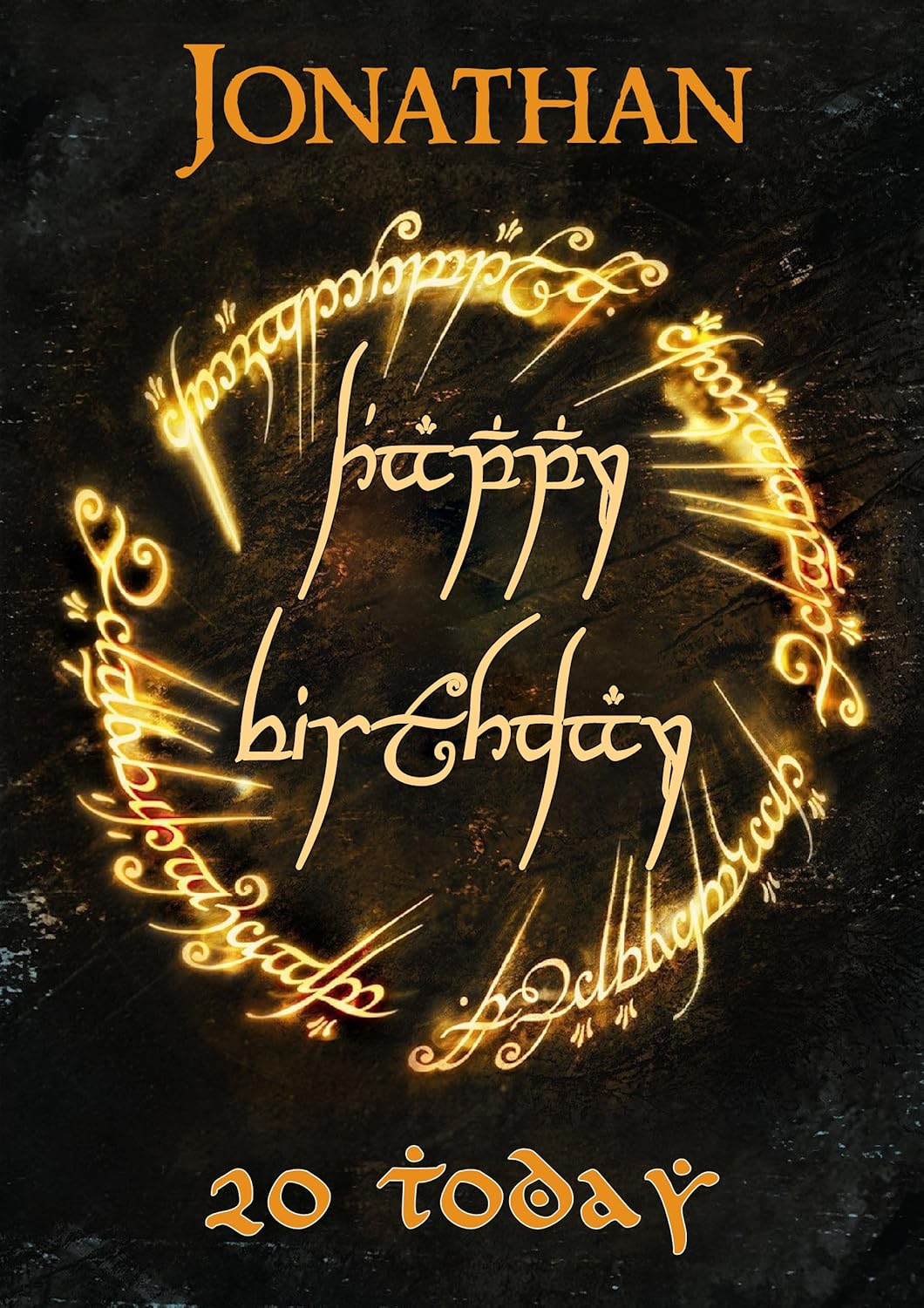
Lord Of The Rings Font Style
Lord of the rings font style. The Lord of the Fonts a guide to fonts in The Hobbit and The Lord of the Rings June 26th, 14 by Demosthenes In this feature Ringer TheHutt, who runs Russian Lord of the Rings and The Hobbit site HennethAnnunru , delves into the different varieties used in Peter Jackson’s movies of The Lord of the Rings and The Hobbit. About This Font Family A fanciful reinterpretation of the elvish type found inside the ring in J R Tolkien's "Lord of the Rings" Elfin has a very small x height with large ascenders and descenders. Some clients choose Lord of the Rings wedding rings for the style and look of the detail We don’t just sell LOTR wedding rings to book and film fans You don’t have to be a Hobbit fan to wear an Elvish engraved wedding ring The style of writing fascinates many people.
“The Lord of the Rings” font is as wellknown as Tolkien’s books and the spectacular film adaptations Read on to learn how to use these fonts and what other fonts Middleearth has in store Contents The fascination of “The Lord of the Rings” font “The Lord of the Ring” fonts to download Readable Elvish fonts;. 45 Free Lord of the Rings fonts FontSpace Instant downloads for 45 free Lord of the Rings fonts For you professionals, 15 are 100% free for commercialuse!. This movie font is the calligraphic style based on the One Ring inscription in The Lord of the Rings Font Tengwar Quenya Author Daniel Steven Smith Free TTF Movie A movie font based on the alphabet invented by John Ronald Reuel Tolkien, author of The Lord Of The Rings Font Terminal Dosis.
January 15, 21 November 5, Calligraphy Fonts Cursive Fonts Custom Fonts Free Fonts Gothic Fonts Handlettered Fonts Lettering Fonts Non Western Fonts Serif Fonts Symbols Fonts Tattoo Fonts Whimsical Fonts by hipfonts FREE The Lord Of The Rings Fonts That Can Change The Course Of Your Designs. Middle earth font, lord of the rings elvish language alphabet and middle earth font are also the great creations for font, and we can download them free for personal or maybe commercial use It's possible to add anything we like, change the details and make our corrections. Download Aniron Font Family · Free for personal use · Includes Aniron Regular, Bold · This is a font used in the end credits in "The Lord of the Rings" The font contains Latin characters, Western accent characters and Cyrilli.
Free download of Bilbo Hand Font Family with 3 styles Released in 02 by Nancy Lorenz and licensed for personal and commercialuse. Download elvish font for PC/Mac for free, take a testdrive and see the entire character set Moreover, you can embed it to your website with @fontface support. Several fonts based on JRR Tolkien's work or its adaptations have been made This page lists several of them Item of note Several of these fonts are tengwar or angerthasThese do not have a oneonone transliteration with Latin script Usually, some guide to the proper usage is included.
The Ringbearer font is a replication of the font used in the logo of Peter Jackson's "The Lord Of The Rings" trilogy I tried to find the original font used in the logo for about half a year, however, without success So I just tried to recreate it, using different logo types from international sites of LotR.